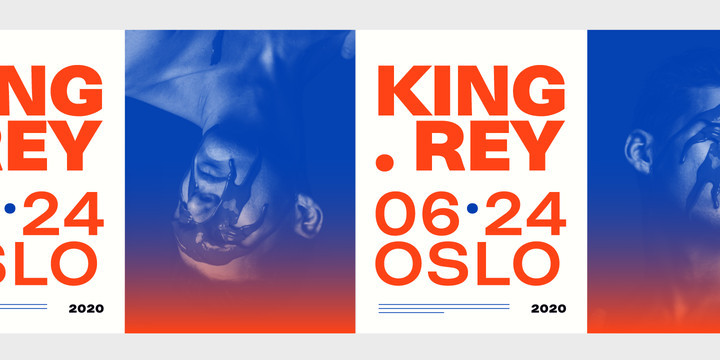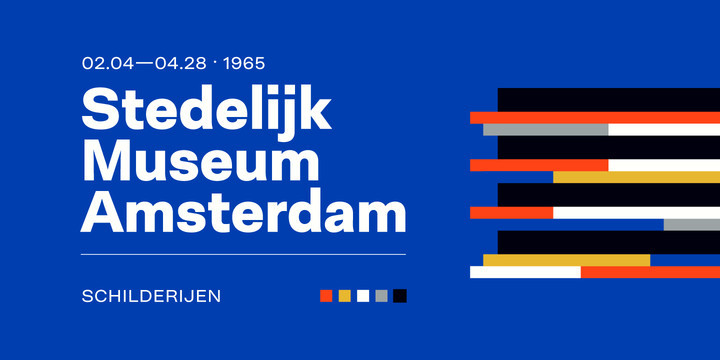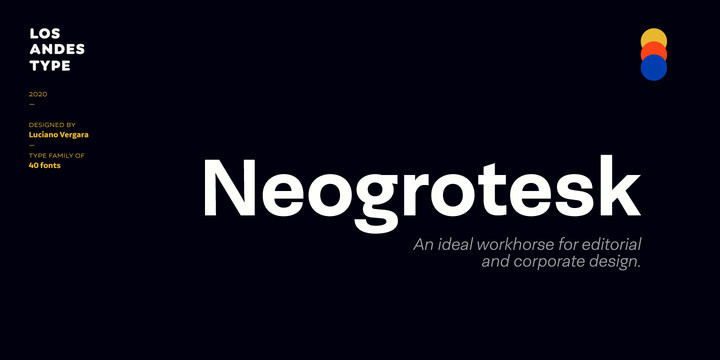
Neogrotesk Font
Not of the Alps but from Los Andes. It tastes a lot more like wine than cheese.
Neogrotesk is a versatile and functional workhorse typeface with a neutral look and Latin flavor. The font includes multiple typographic features such as alternates, ligatures, small caps, case-sensitive punctuation, arrows as well as lining, old style and tabular figures.